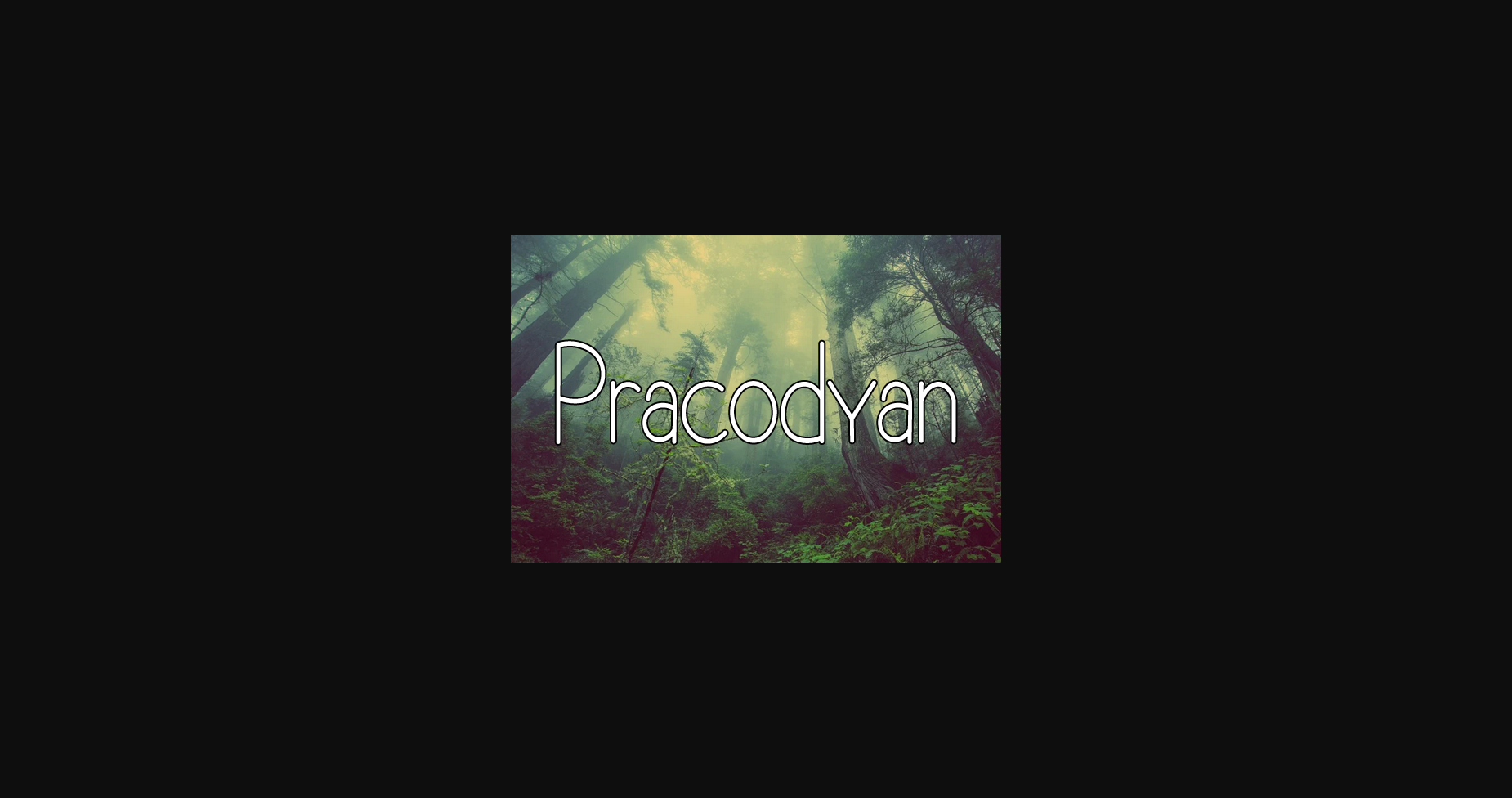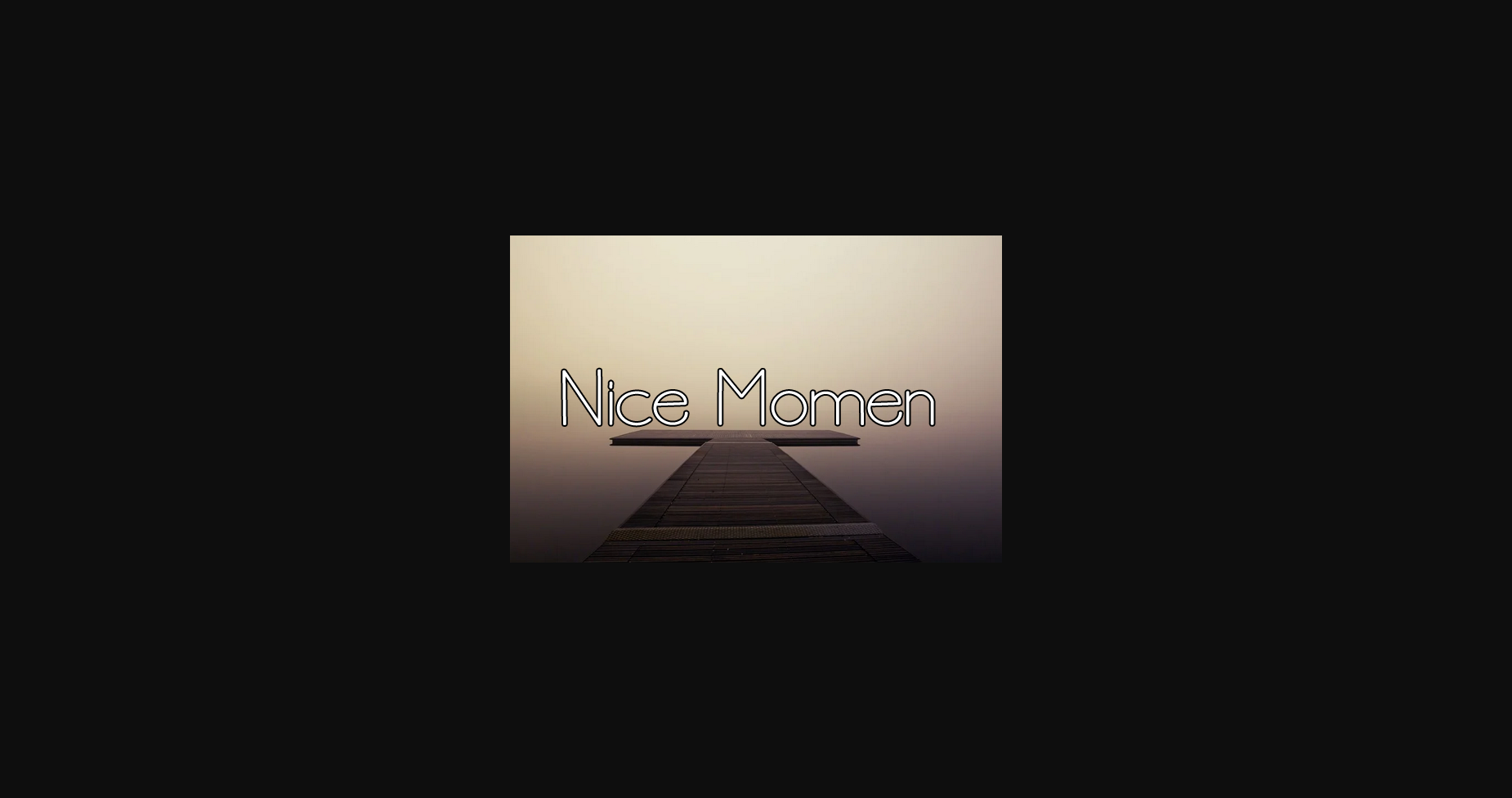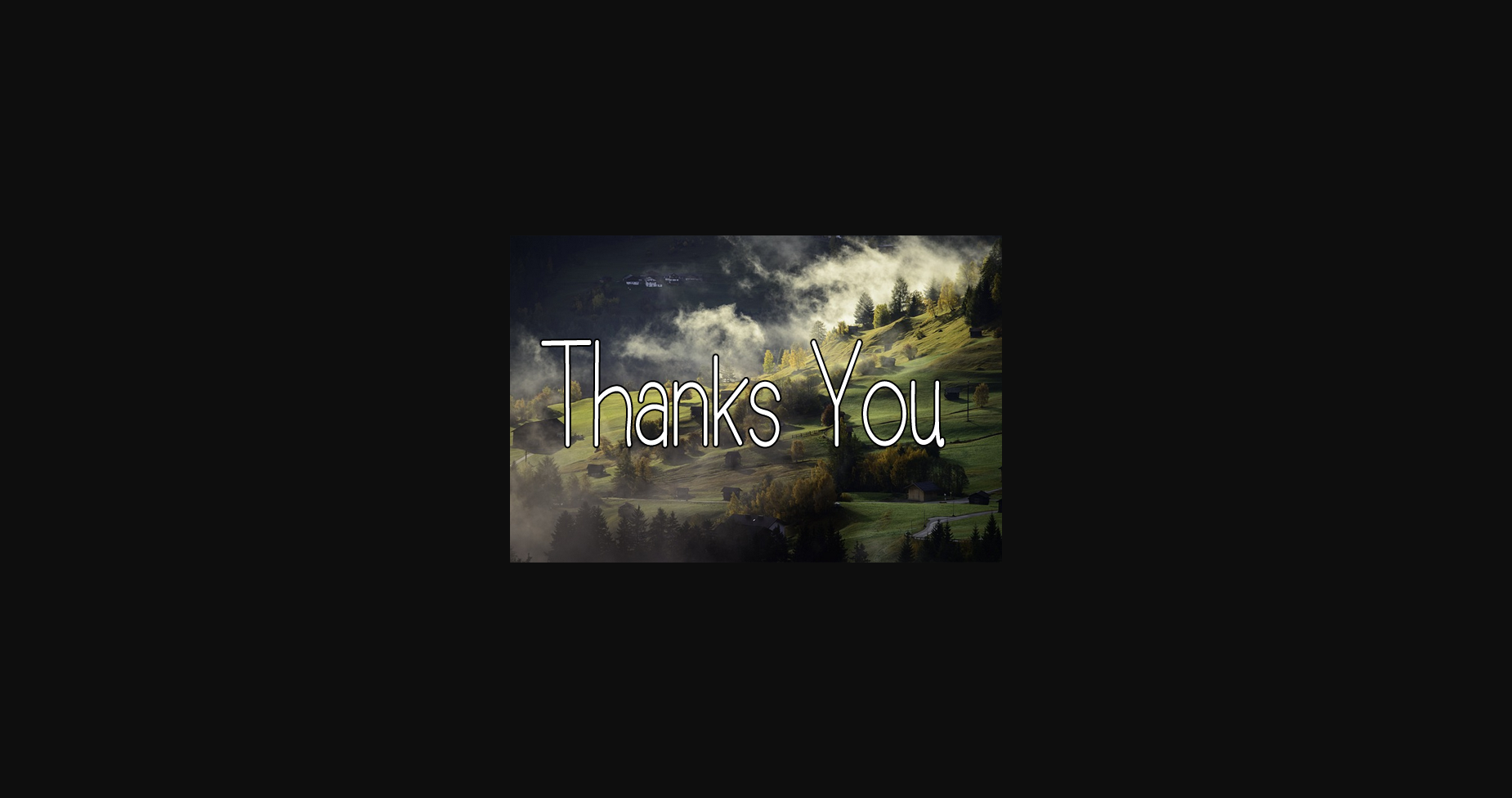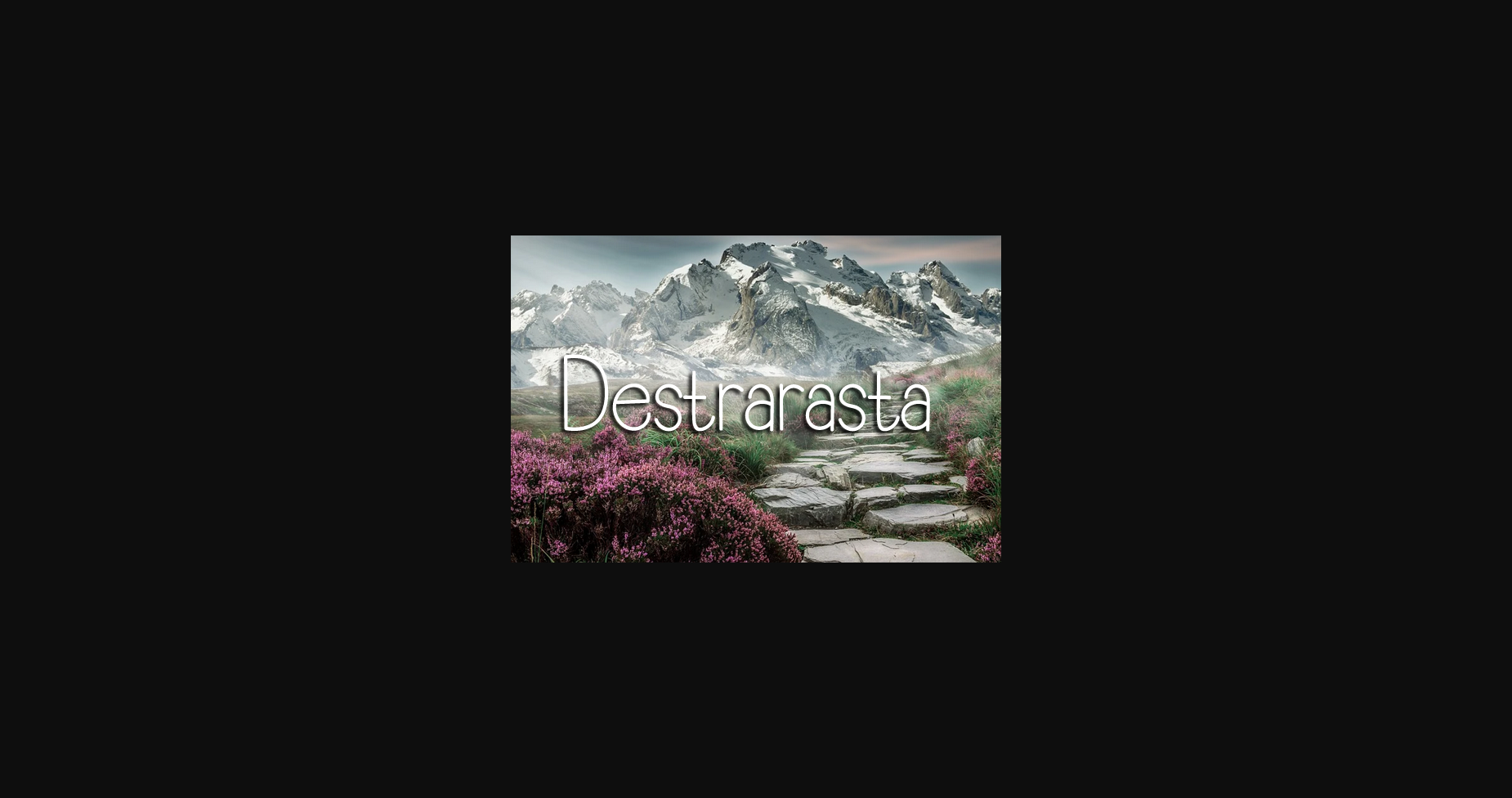
About Pracodyan Font
Pracodyan is a dainty and thin lettered sans serif font.
It can easily be matched to an incredibly large set of projects, so add it to your creative ideas and notice how it makes them stand out!